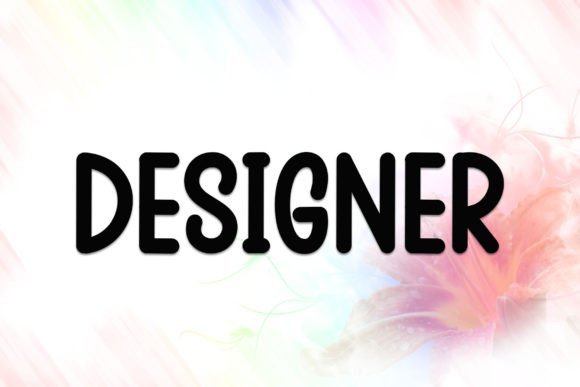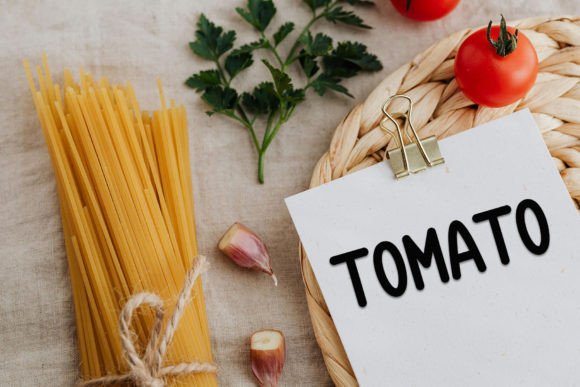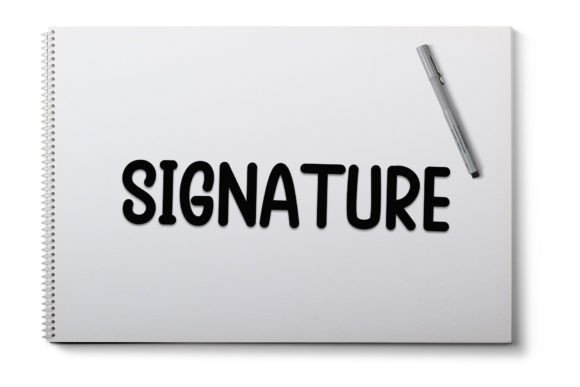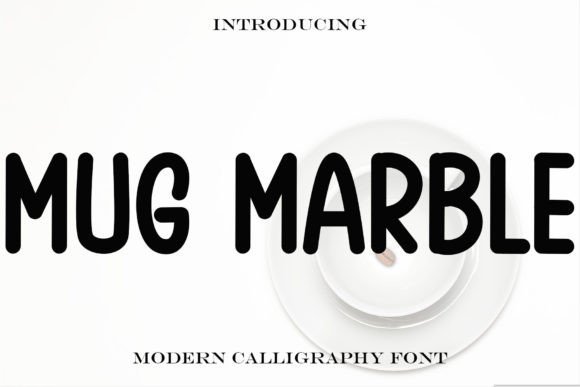
Introduction to Mug Marble Font
Mug Marble is a trendy display font with a contemporary atmosphere and impeccable form, inspired by timeless classic calligraphy.
It will add elegance and class to any of your design projects .